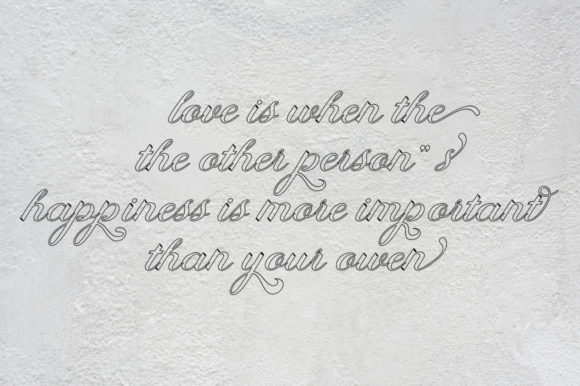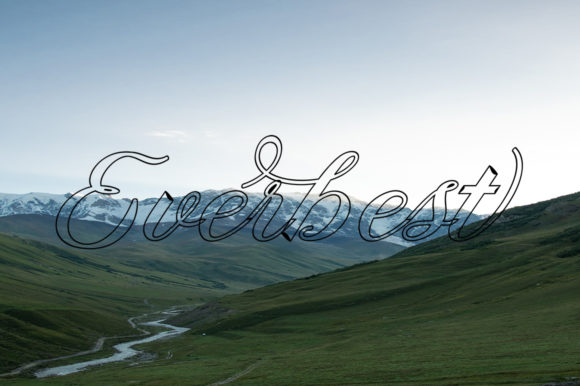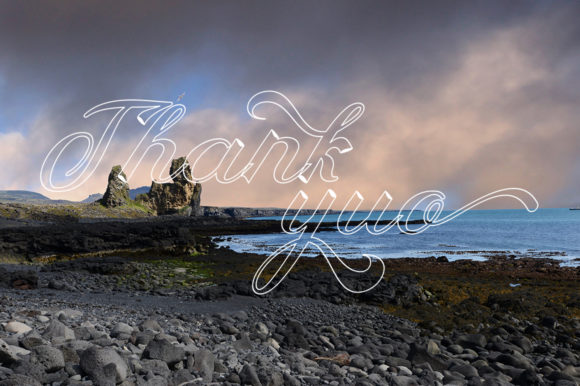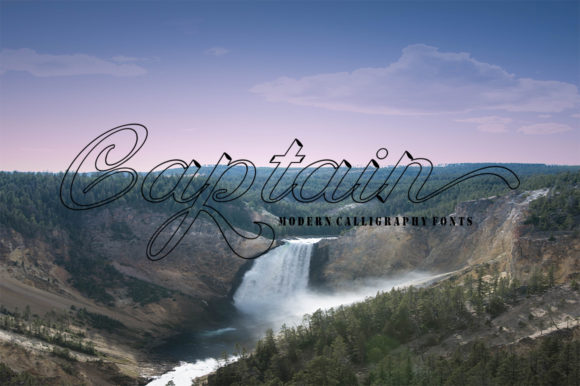
Discover the Timeless Charm of Captain Font: Elevate Your Design Projects
Are you a designer or crafter looking for a font that exudes a sense of boldness and authenticity? Look no further than Captain Font, a versatile and timeless typeface that is sure to inspire your next design project. With its light and authentic charm, Captain Font is the perfect choice for those seeking to add a touch of sophistication and elegance to their work.
The Characteristics of Captain Font
Captain Font boasts a unique blend of boldness and subtlety, making it an ideal choice for a wide range of design applications. Its clean lines, classic proportions, and highly legible letterforms ensure that it remains a compelling and effective font, whether used for headings, titles, or body text.
One of the standout features of Captain Font is its exceptional versatility. It can be used in a variety of contexts, from elegant branding and advertising materials to creative crafts and DIY projects. Whether you’re designing a logo, brochure, or social media graphics, Captain Font is sure to make a lasting impression.
The Benefits of Using Captain Font
So why choose Captain Font for your design projects? Here are just a few of the benefits that this exceptional font has to offer:
- Timeless appeal: Unlike trendy fonts that quickly go out of style, Captain Font has a timeless quality that ensures it will remain relevant for years to come.
- Bold yet elegant: Captain Font strikes the perfect balance between boldness and elegance, making it suitable for a wide range of design applications.
- Highly legible: The clean lines and classic proportions of Captain Font ensure that it remains highly legible, even at small sizes.
- Exceptionally versatile: Whether you’re designing for print or digital media, Captain Font is an excellent choice.
How to Use Captain Font in Your Design Projects
Ready to discover the creative possibilities of Captain Font? Here are a few ideas to get you started:
- Branding and logos: Use Captain Font to create a bold and memorable logo that perfectly captures the essence of your brand.
- Advertising materials: From brochures and flyers to social media graphics and billboards, Captain Font is an excellent choice for any advertising project.
- Crafts and DIY projects: Add a touch of elegance and sophistication to your crafts and DIY projects with Captain Font.
- Digital media: Use Captain Font to create stunning digital media, including website headers, email newsletters, and more.
Tips for Getting the Most Out of Captain Font
To truly unlock the creative potential of Captain Font, here are a few expert tips to keep in mind:
- Experiment with different colors: Captain Font looks stunning in a range of colors, from bold and bright to subtle and muted.
- Play with font sizes: Don’t be afraid to experiment with different font sizes to create visual interest and hierarchy.
- Pair with other fonts: Captain Font pairs beautifully with a range of other fonts, so don’t be afraid to get creative with font combinations.
| Author | sapre.studio |
In conclusion, Captain Font is a timeless and versatile typeface that is sure to inspire your next design project. With its bold appeal, light and authentic charm, and exceptional legibility, Captain Font is the perfect choice for designers and crafters looking to add a touch of sophistication and elegance to their work. So why wait? Discover the creative possibilities of Captain Font today and take your design projects to the next level.